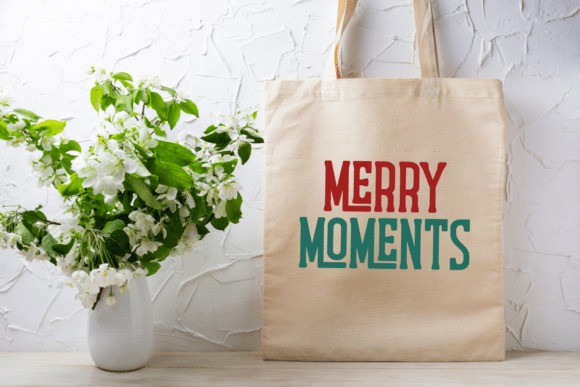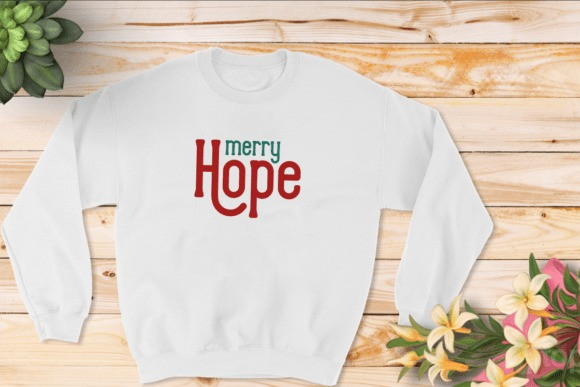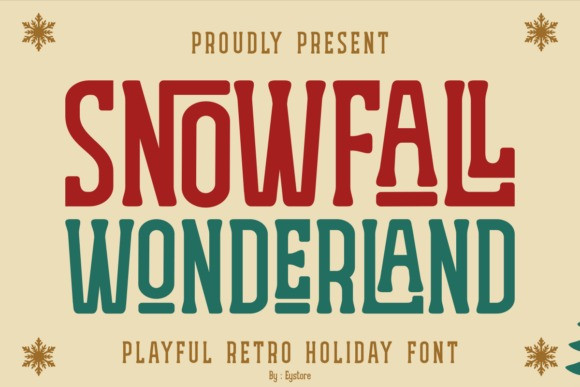
Snowfall Wonderland Font is a playful retro holiday font, perfect for Christmas and winter-themed designs. With bold letterforms and a cheerful retro vibe, this font brings a warm festive feeling to your projects. Use it for greeting cards, mugs, T-shirts, posters, invitations, or any holiday craft project to spread the joy of the season.
Bring your holiday creations to life with Snowfall Wonderland – a font full of Christmas spirit and retro charm!